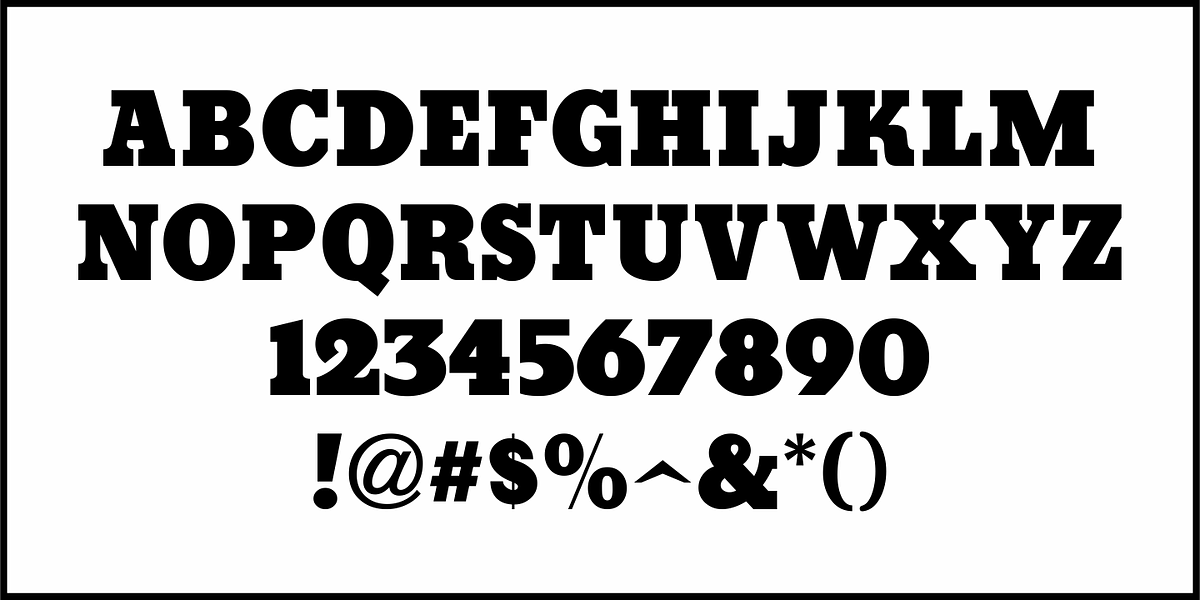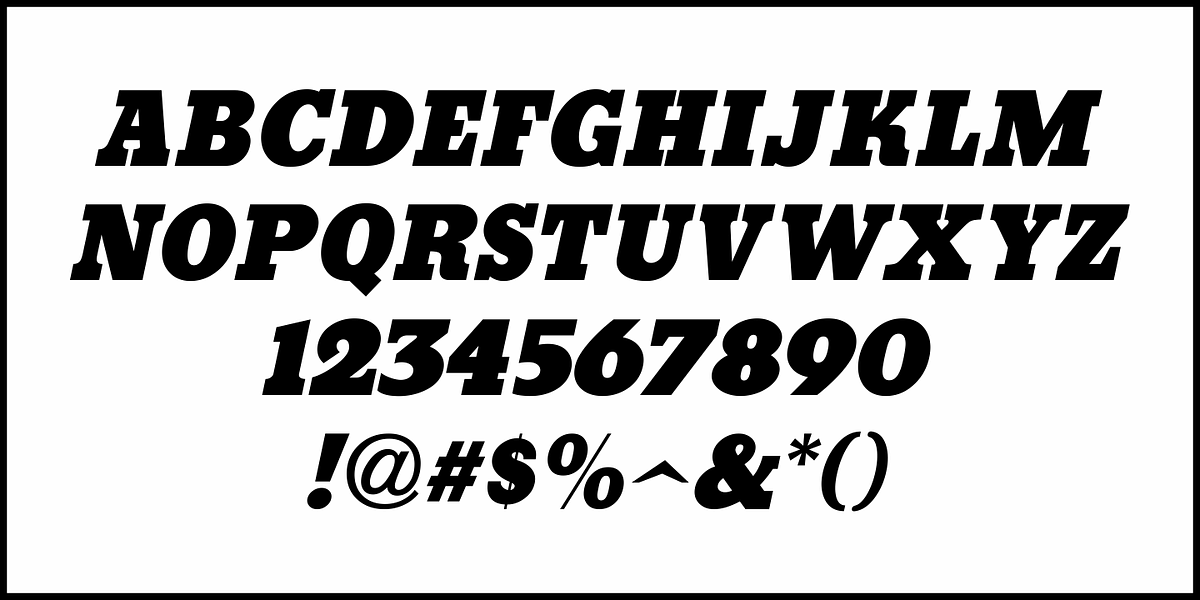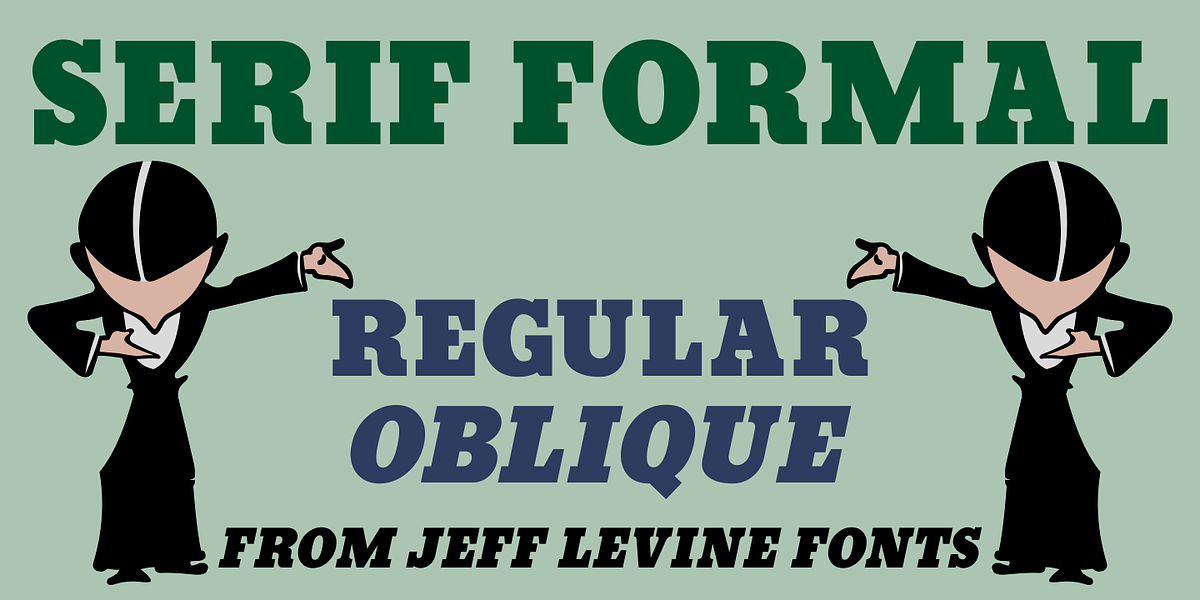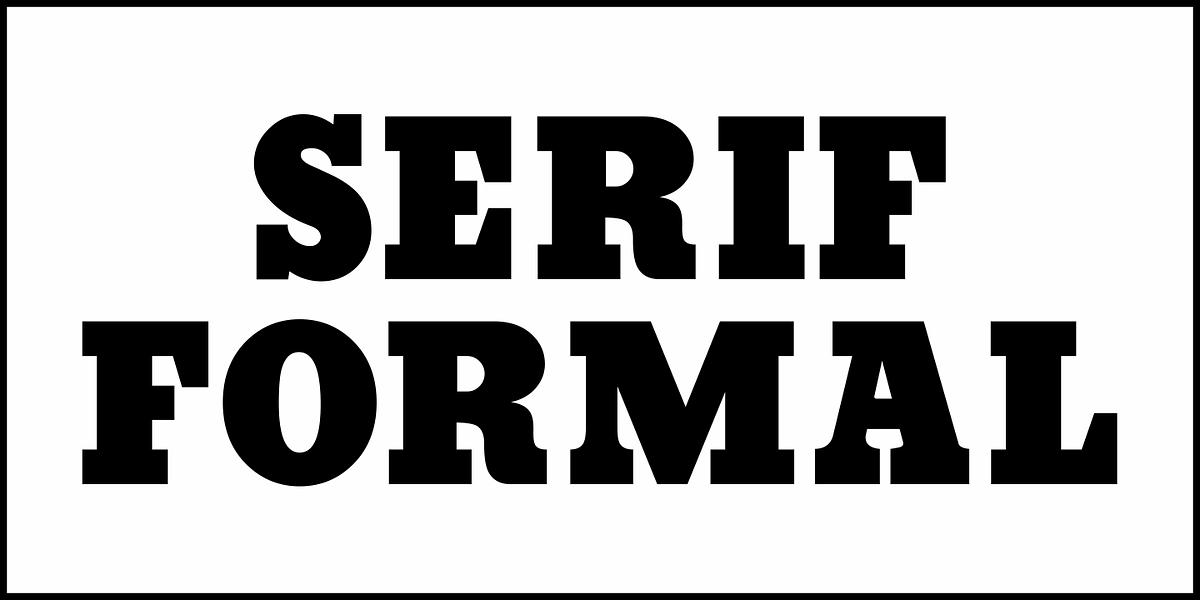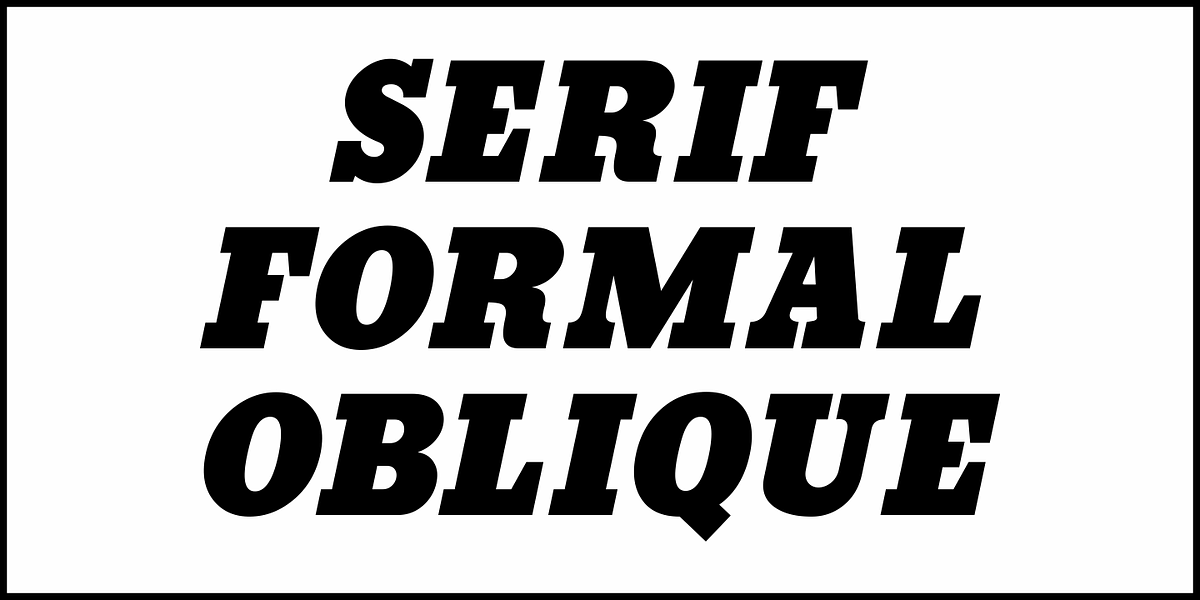
Serif Formal JNL
An advertisement in a 1936 issue of “The Film Daily” for the movie “Mr. Deeds Goes to Town” had much of its copy set in an extrabold typeface similar to the Beton/Stymie/Karnac group of slabserif designs.
This is now available digitally as Serif Formal JNL in both regular and oblique versions.